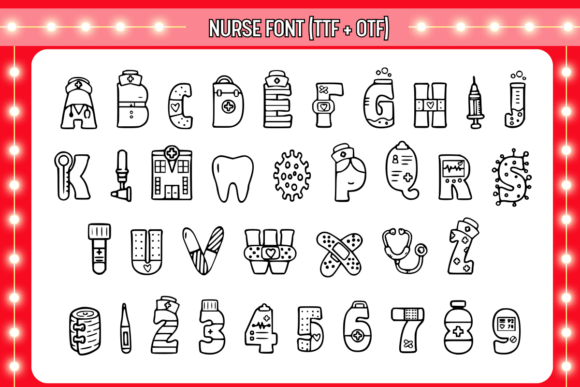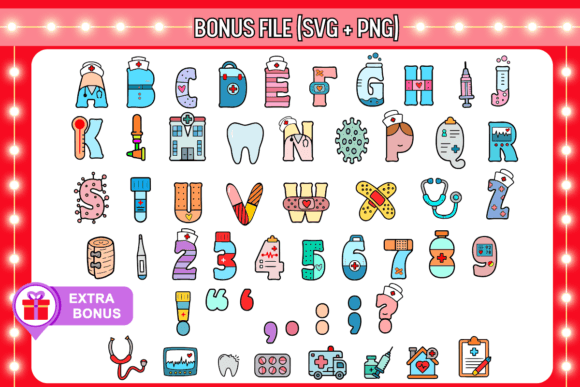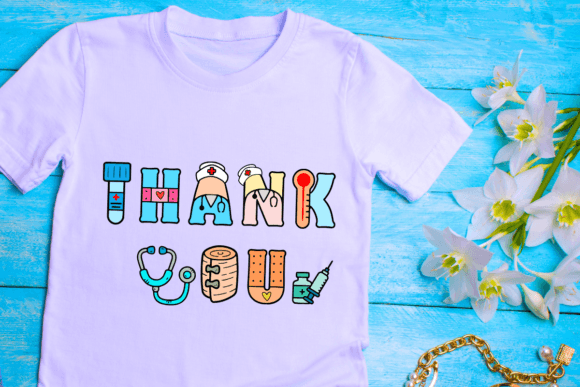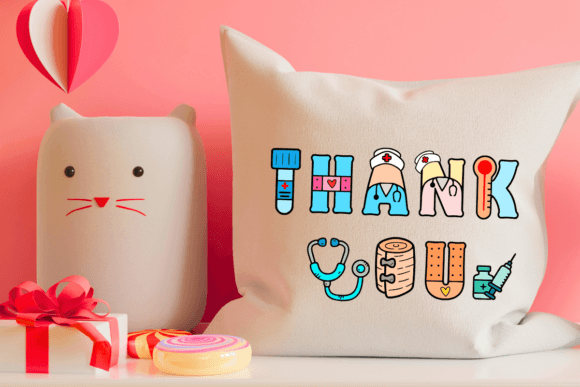
Introduction to Nurse Font
The Nurse font is a decorative typeface featuring nurse-themed details on each letter.
The letters have little medical touches like stethoscopes, nurse hats, and bandages, making it perfect for health-related projects or nursing-themed designs .